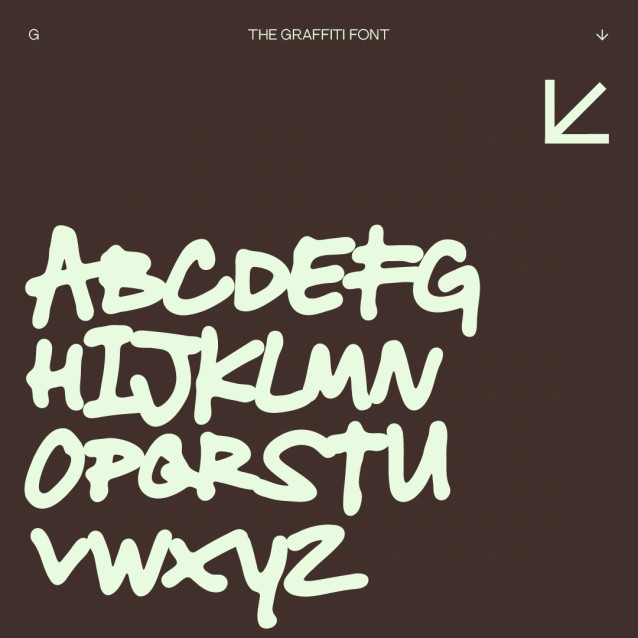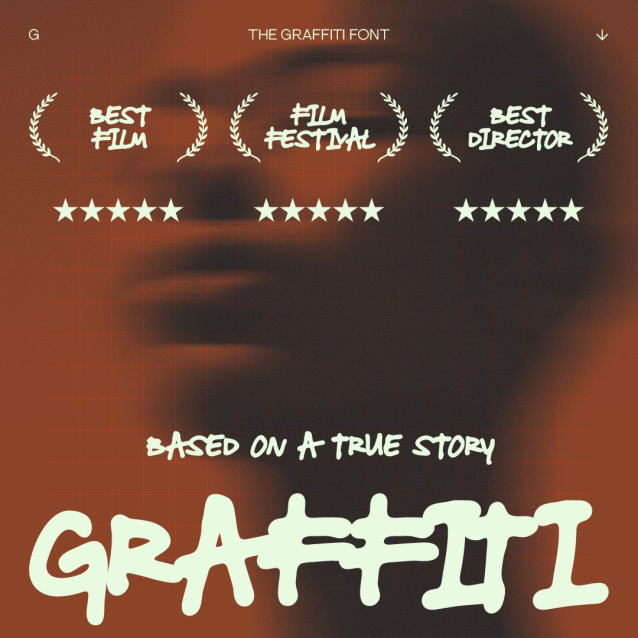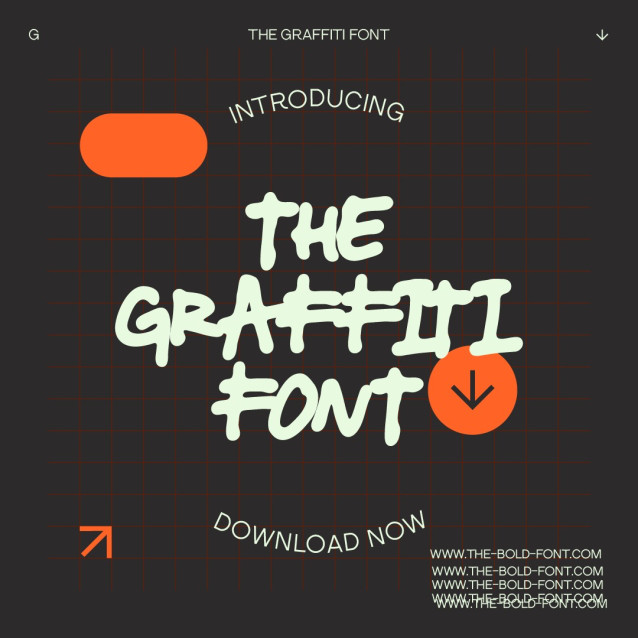
The Graffiti Font
The Graffiti Font is a simple and friendly handwritten font. Its natural and unique style makes it incredibly fitting to a large pool of designs. The only limit is your imagination!